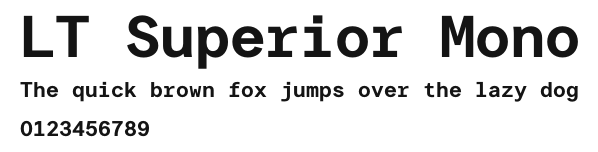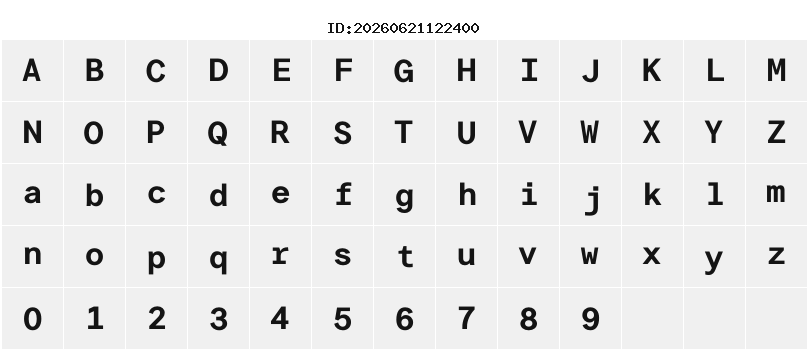
• Font Name: LT Superior Mono
• Full Font Name: LT Superior Mono Bold
• Designer: Daniel Lyons
• Manufacturer: LyonsType
About LT Superior Mono.otf
LT Superior Mono.otf is a modern, elegant sans-serif font designed for ultimate readability and visual harmony. Perfect for branding, headlines, web design, and print materials.